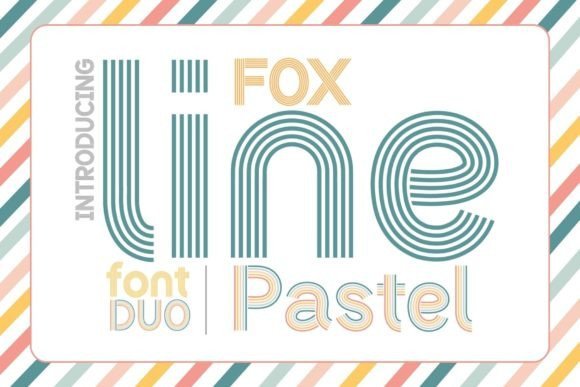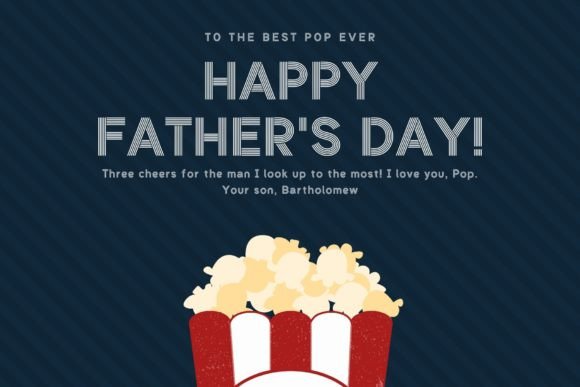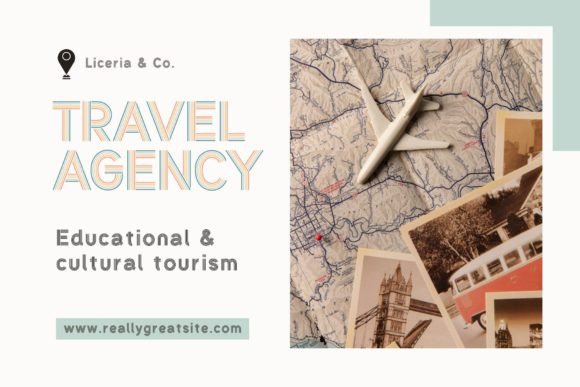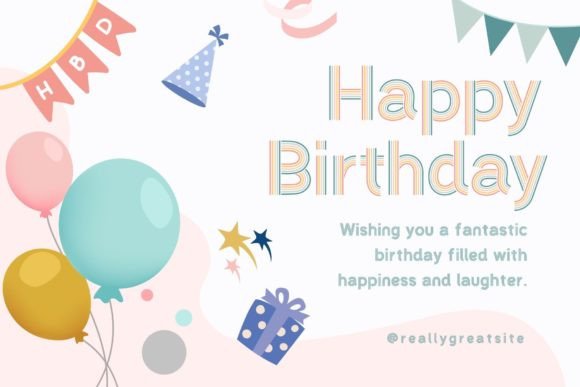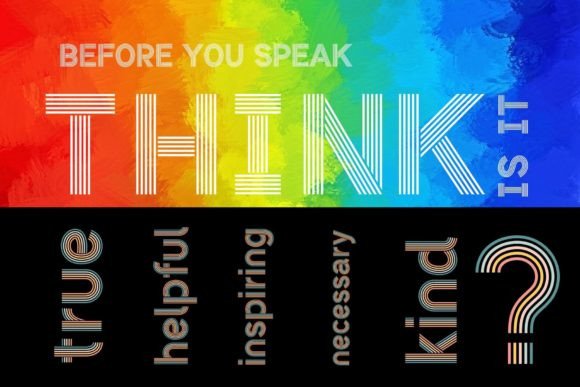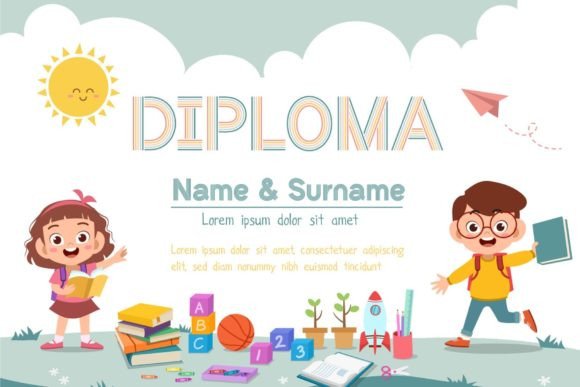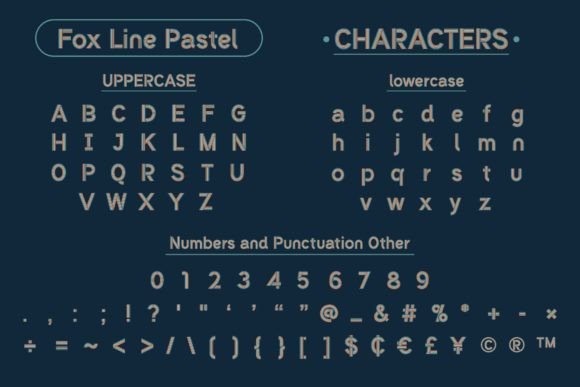
Remember the moment when a font choice completely transformed your design? It’s that ‘aha’ moment when everything falls into place, and your project goes from ordinary to extraordinary. For designers, finding the perfect font can be a game-changer, elevating the entire aesthetic of your work.
Enter Fox Line Font, a stunning and versatile font that adds a captivating and energetic touch to your designs. This beautiful font comes in two versions – Fox Line Pastel and Fox Line, each with its own unique charm. Whether you’re creating attention-grabbing headlines, t-shirt typography, or product labels, Fox Line Font is sure to bring your designs to life.
As a valuable addition to any designer’s toolkit, Fox Line Font offers endless possibilities for creative expression. With its vibrant and expressive design, you’ll be able to craft unique and eye-catching designs that stand out from the crowd.
Fox Line Font Key Features
- Font Family: Fox Line Font is a sans-serif font family designed for digital and print media.
- Unique Characteristics: Fox Line Font features a unique blend of modern and vintage elements, with a distinctive x-height and letter spacing that sets it apart from other sans-serif fonts.
Designer Review: Fox Line Font
Overall, I’m impressed with Fox Line Font’s modern and sleek design. ✨ The font’s clean lines and geometric shapes make it perfect for digital interfaces and branding materials. I’ve used it for several projects and have received great feedback from clients.
The font’s versatility is one of its strongest features. ✨ It works well in both bold and light weights, making it easy to create a consistent visual identity. I’ve also noticed that Fox Line Font is highly legible, even at small sizes.
While Fox Line Font is an excellent choice for many projects, there are some limitations to consider:
- ⚠️ The font may not be suitable for projects that require a more traditional or serif-based font style.
- ⚠️ Fox Line Font can be a bit too minimalist for projects that require a lot of emphasis or visual interest.
- ⚠️ Some users may find the font’s geometric shapes a bit too bold or distracting.
Despite its limitations, I highly recommend Fox Line Font for any project that requires a modern and sleek design. ✨ The font’s versatility and legibility make it a great choice for branding, digital interfaces, and marketing materials. With a little creativity and experimentation, Fox Line Font can be a powerful tool in your design arsenal.
Practical Application Guide for Fox Line Font
Tips for Getting the Most Out of Fox Line Font
For optimal results, use Fox Line Font in bold or italic styles to add emphasis to your text. You can also pair it with other fonts to create a unique visual effect. Experiment with different font sizes and styles to find the perfect balance for your design.
Fox Line Font is commonly used for:
– Headlines and titles
– Logos and branding materials
– Infographics and data visualizations
– Digital products and marketing materials
Alternatives to Fox Line Font for Designers
Open Sans is a popular sans-serif font that is highly legible and versatile. It is suitable for body text, headings, and even titles. Open Sans is ideal for digital interfaces, web design, and mobile apps.
Compared to Fox Line Font, Open Sans has a more modern and clean look, making it suitable for a wide range of designs. Fox Line Font has a more elegant and classic feel, which may be preferred for traditional or formal designs.
Lato is a sans-serif font that is highly customizable and versatile. It is suitable for body text, headings, and titles, and is ideal for web design, mobile apps, and digital interfaces.